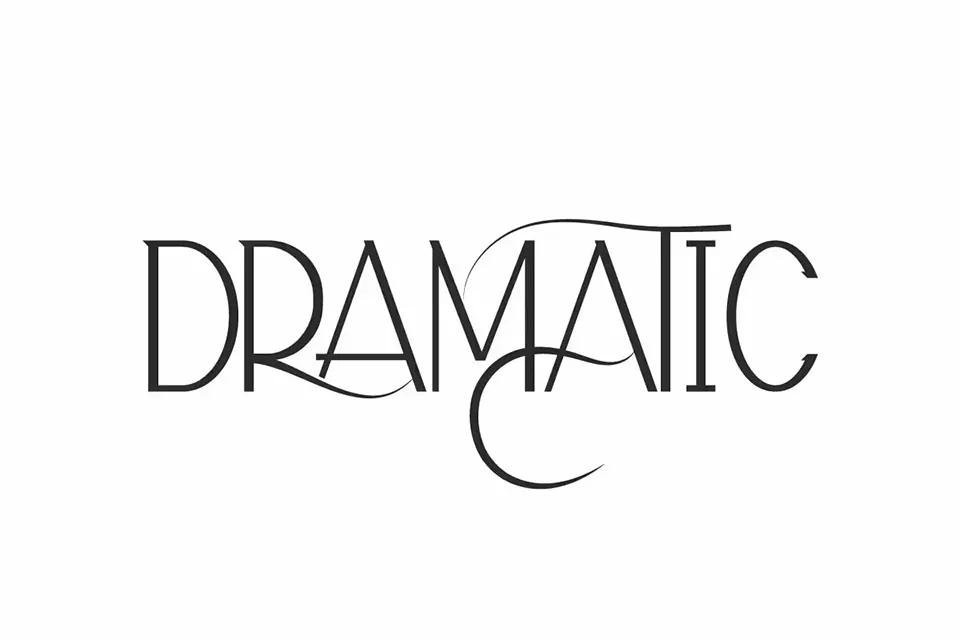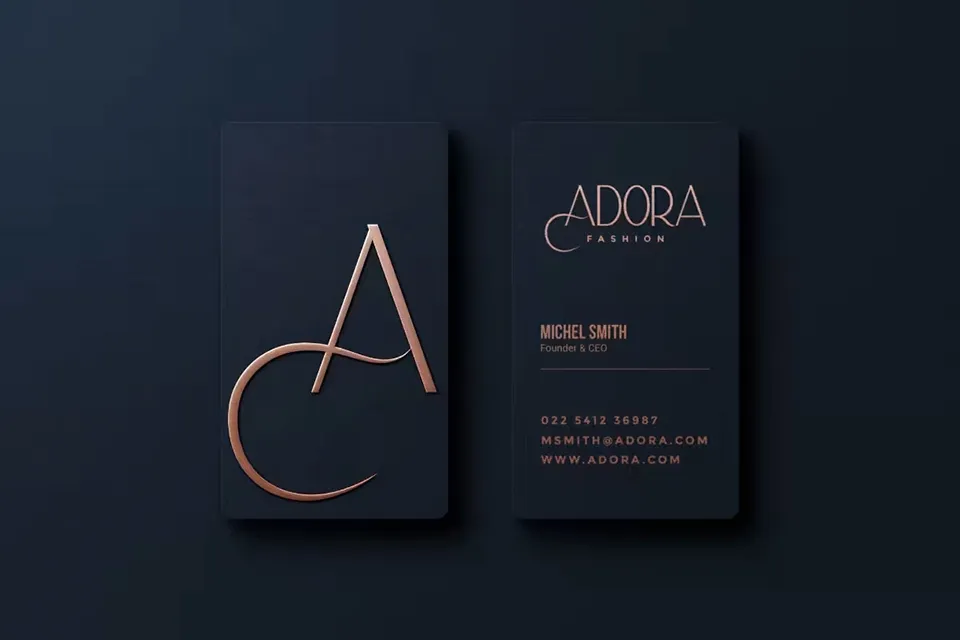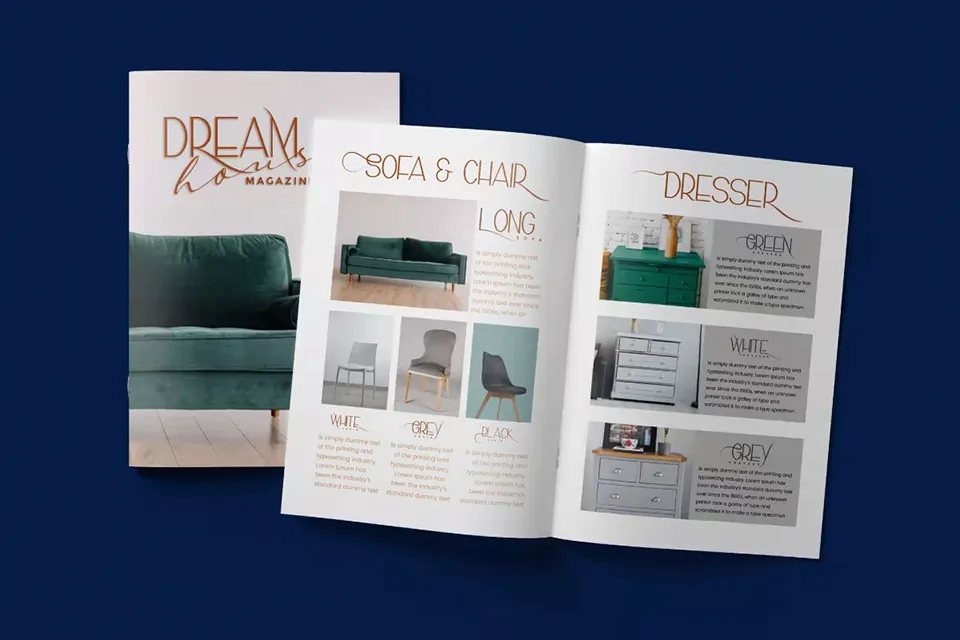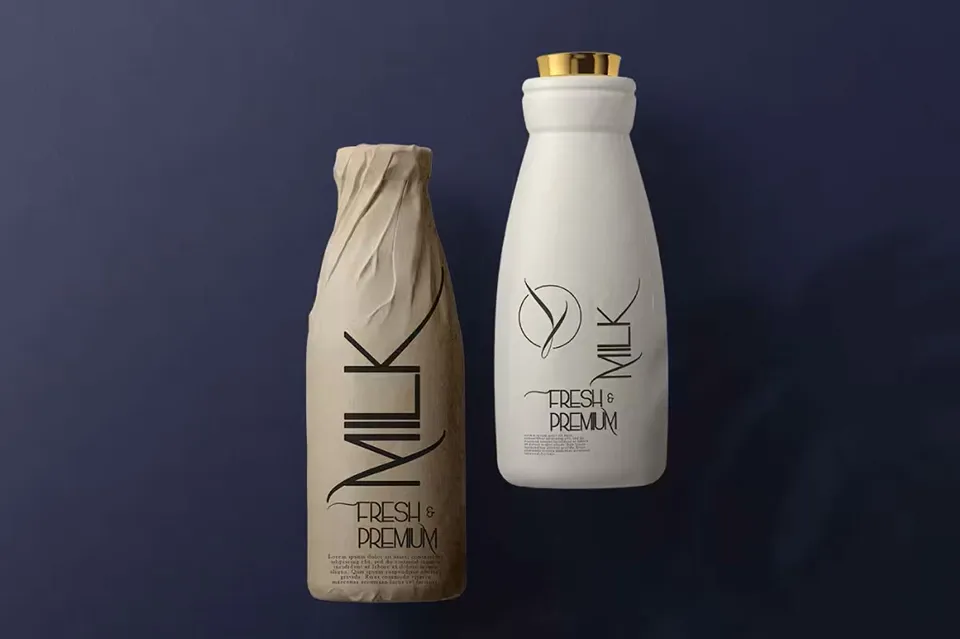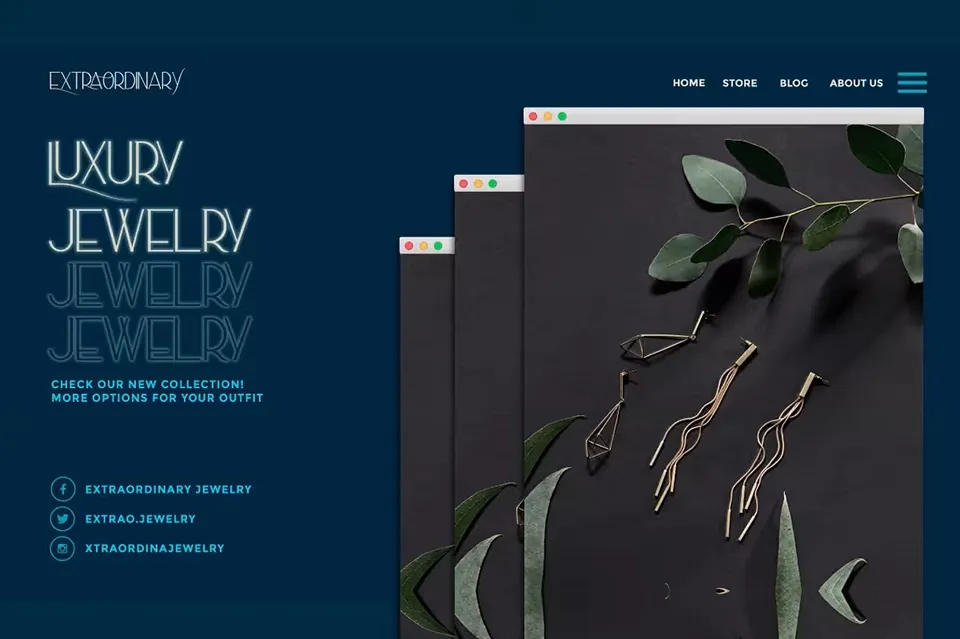
Dramatic Font
Dramatic Font is a stylish modern display font designed by NihStudio. It features unique and elegant letterforms with beautiful alternative characters and ligatures, making it perfect for headlines, logos, branding, signage, and creative projects that require a touch of sophistication and flair. This font is ideal for industries such as fashion, magazine, cosmetics, weddings, floristry, and vintage-themed designs.